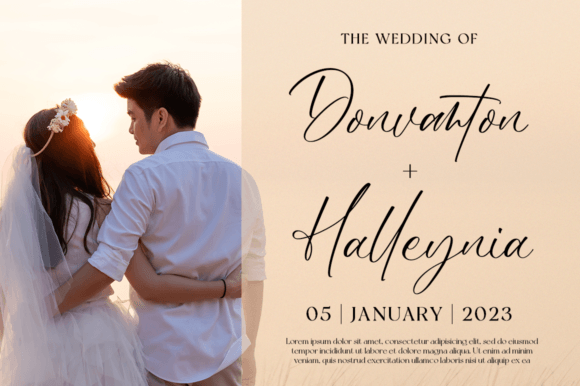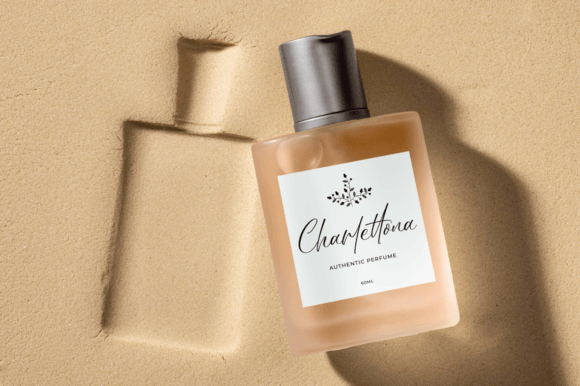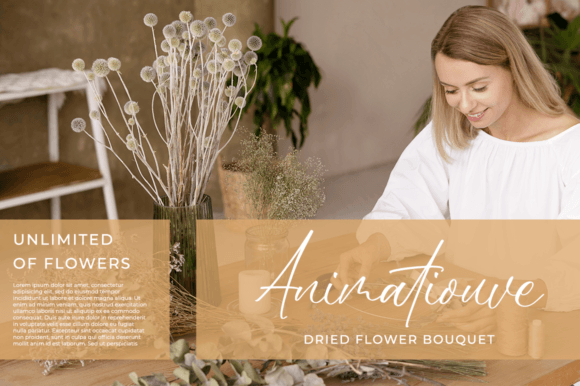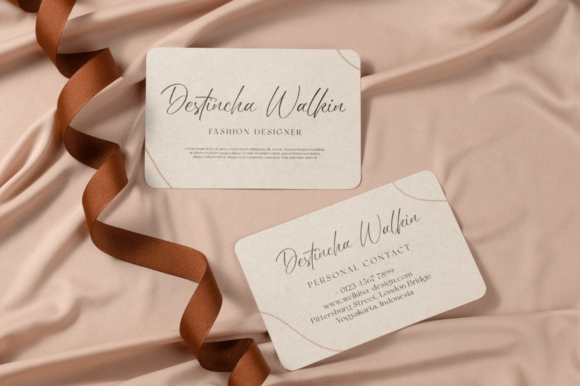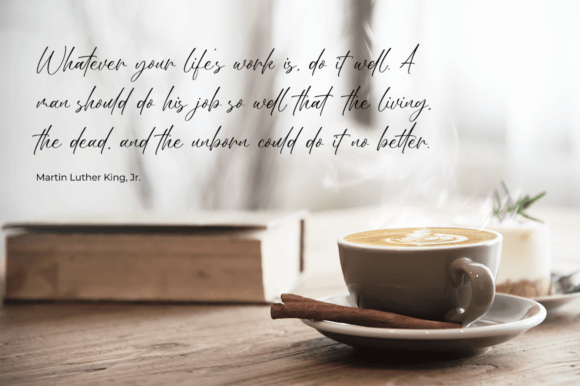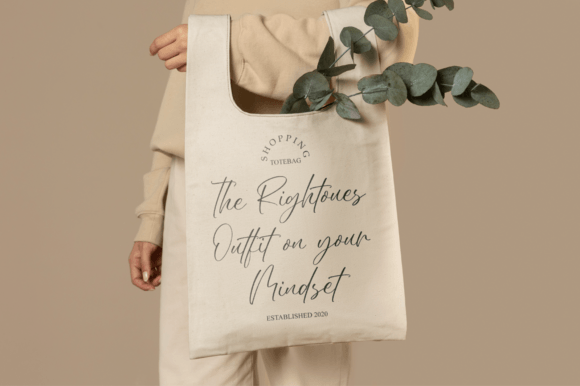
Introduction to Huntingtone Font
Huntingtone is an elegant handwritten font that feels both gorgeous and distinct.
It looks beautiful on wedding invitations, thank you cards, quotes, greeting cards, logos, business cards, and every other design which needs a customized touch This font is PUA encoded, which means you can access all of the glyphs and swashes with ease.